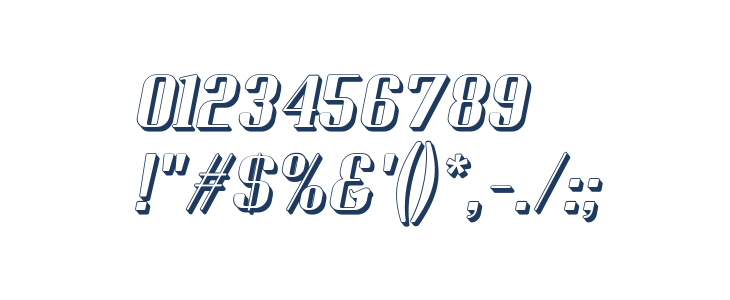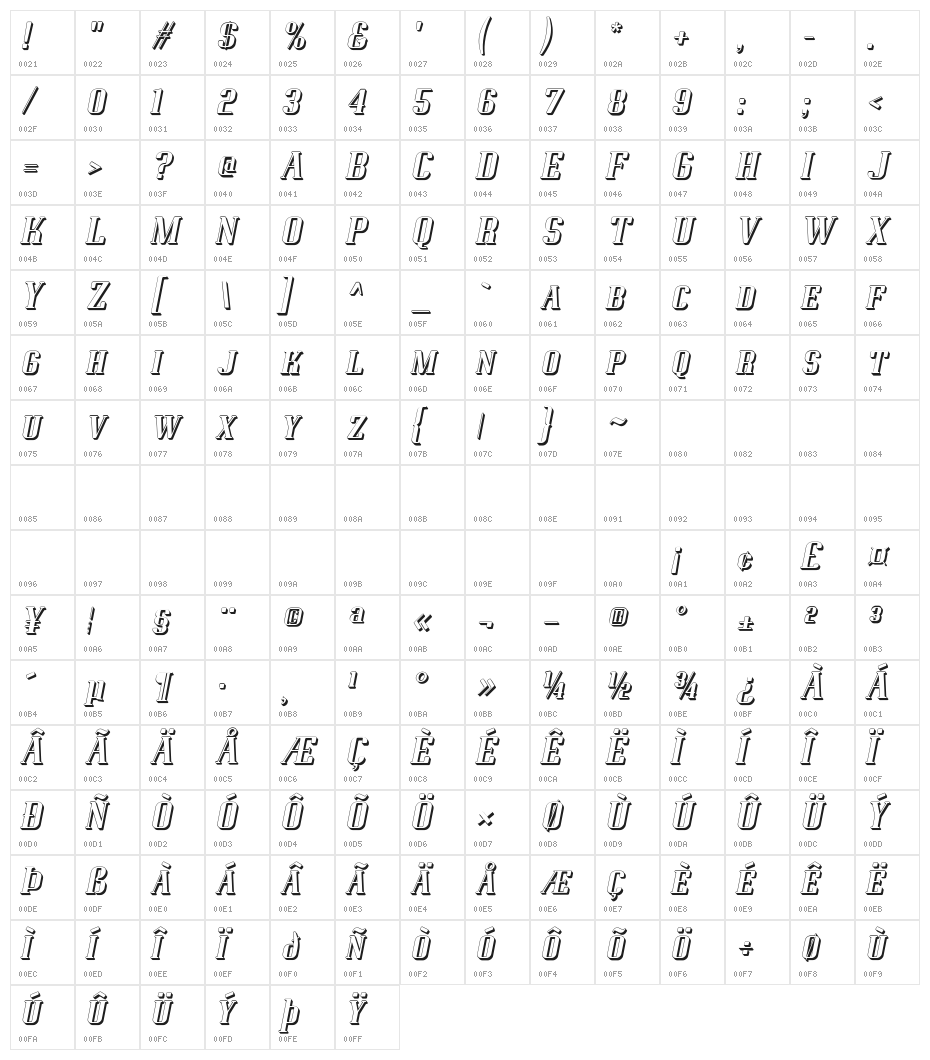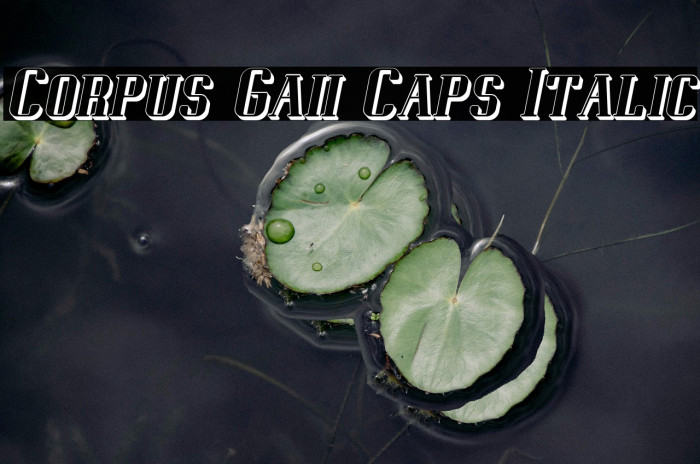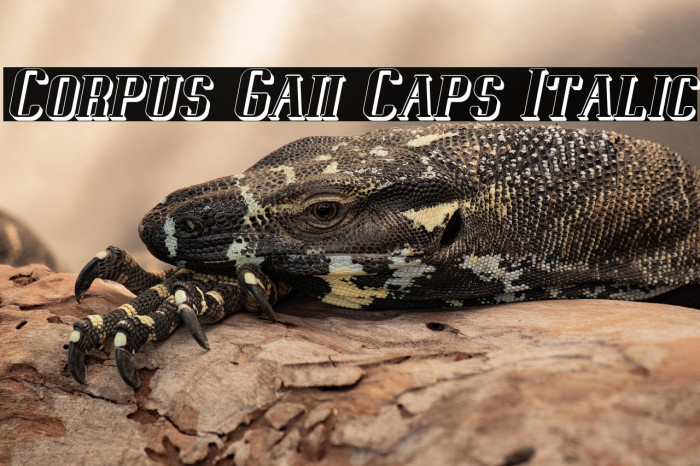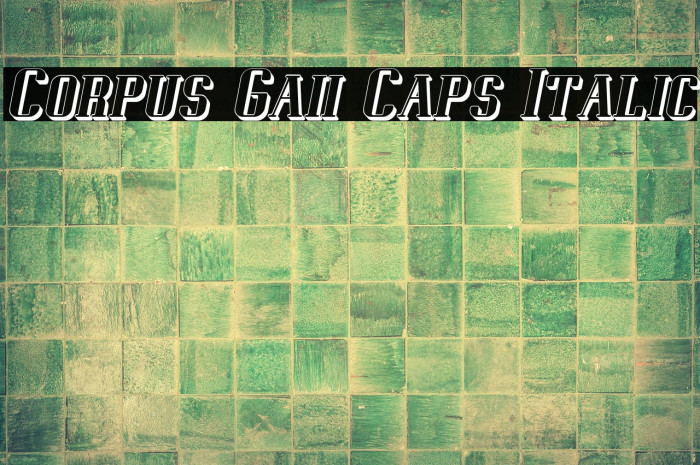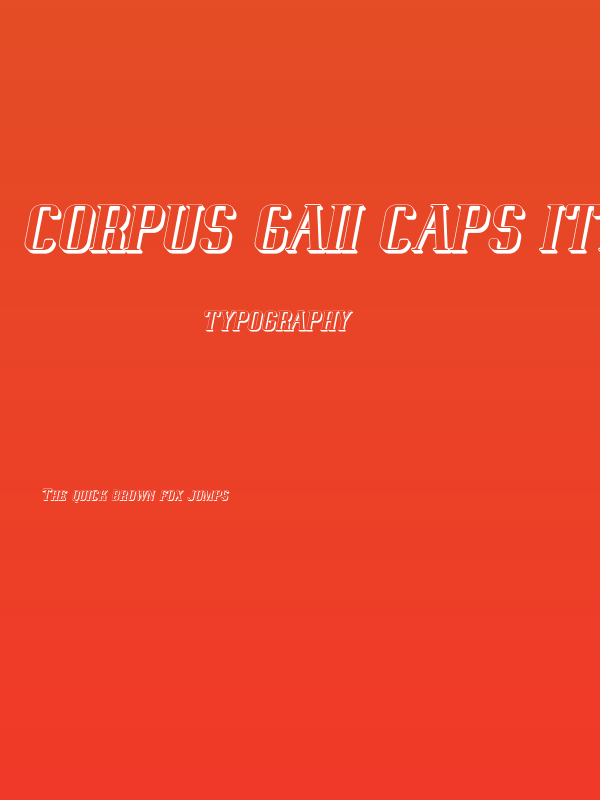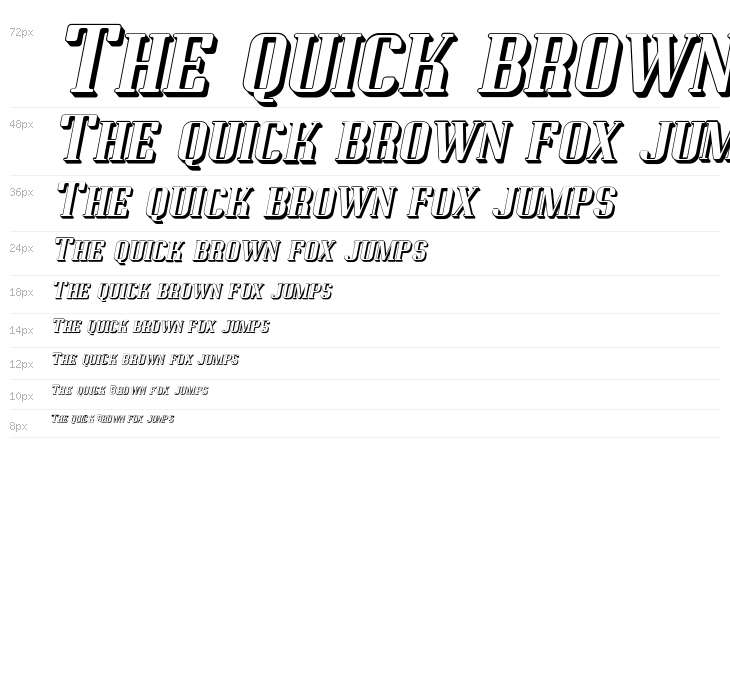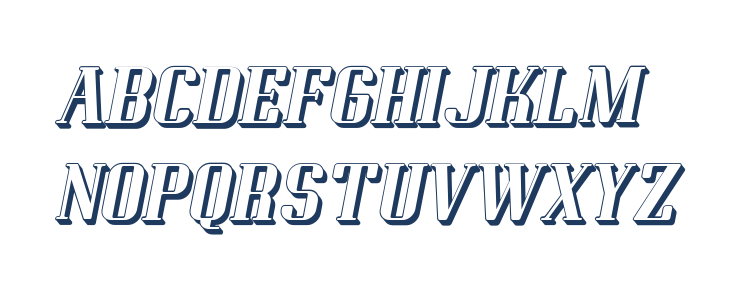
Corpus Gaii Caps Italic Font
Corpus Gaii Caps Italic Description
This font features a bold and dynamic italic style with a strong presence. The characters are designed with a slight slant, giving them a sense of motion and energy. Each letter is outlined with a shadow effect, adding depth and a three-dimensional appearance. The strokes are consistent and bold, providing a clear and impactful look. The numbers and special characters maintain the same stylistic features, ensuring uniformity across all glyphs. This font is ideal for creating attention-grabbing headlines and titles.